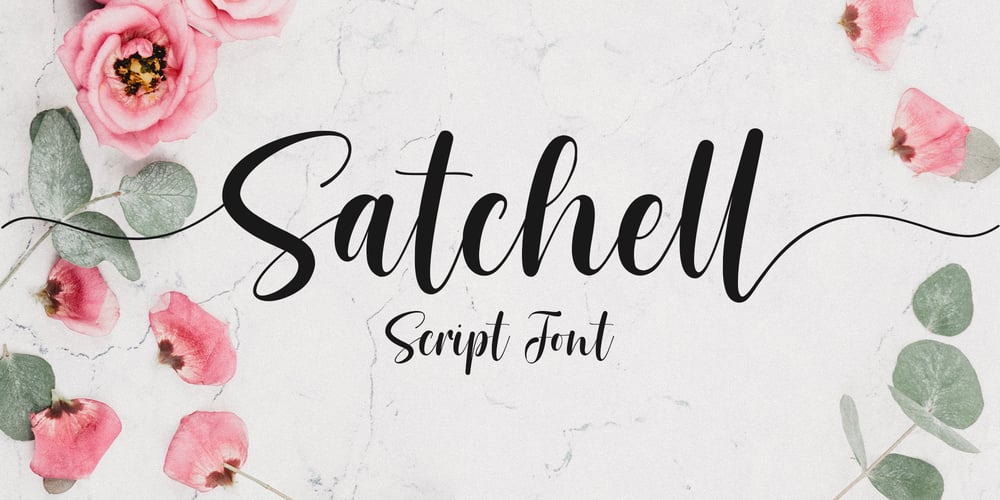
Satchell Font Family was designed by Dwi Ahidian and published by Lemonthe. Satchell contains 1 styles and family package options. Satchell is a lovely and relaxed handwritten font. It is PUA encoded which means you can access all of the glyphs and swashes with ease! it has a gentle and beautiful flow, and as a result it will elevate each of the designs you wish to create!. It’s the perfect font for wedding invitations, stationery, photography, social media posts, product packaging, greeting cards, and much more!